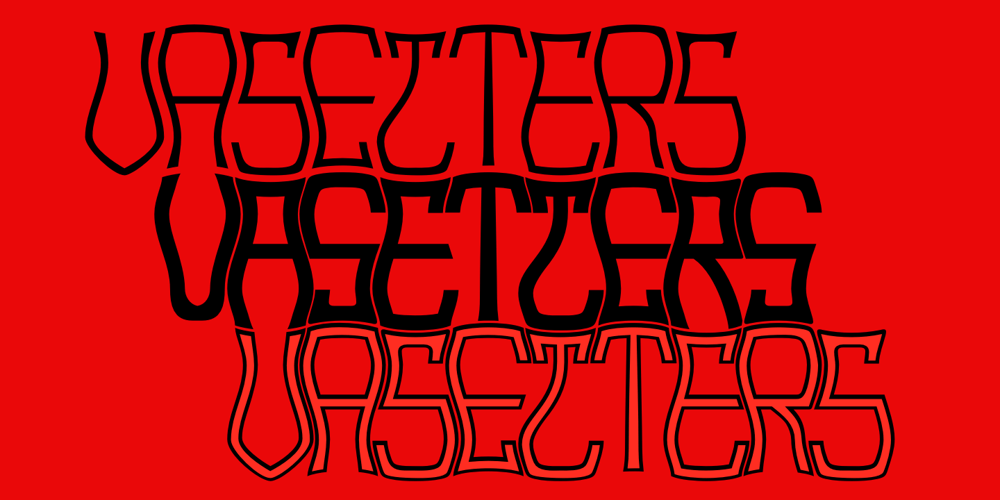
Vasetters Font Family was designed by Robert Schenk and published by Ingrimayne Type. Vasetters contains 2 styles and family package options. In Vasetters the letters are cut from the shape of a tessellating vase. To get the tessellating effect, the two sets of letters (and numbers and some symbols) must alternate, and this is done automatically in applications that support the OpenType feature of Contextual Alternatives (calt). Vasetters is monospaced and comes in two weights. The regular weight is tightly spaced, which should not be a problem at large point sizes. At small point sizes adjacent letters can be colored differently or the character spacing can be increased. The lighter weight can be used alone or layered above the regular weight to create the effect of hollow lettering. Vasetters is is fun, bizarre, weird, and obviously a decorative display font.